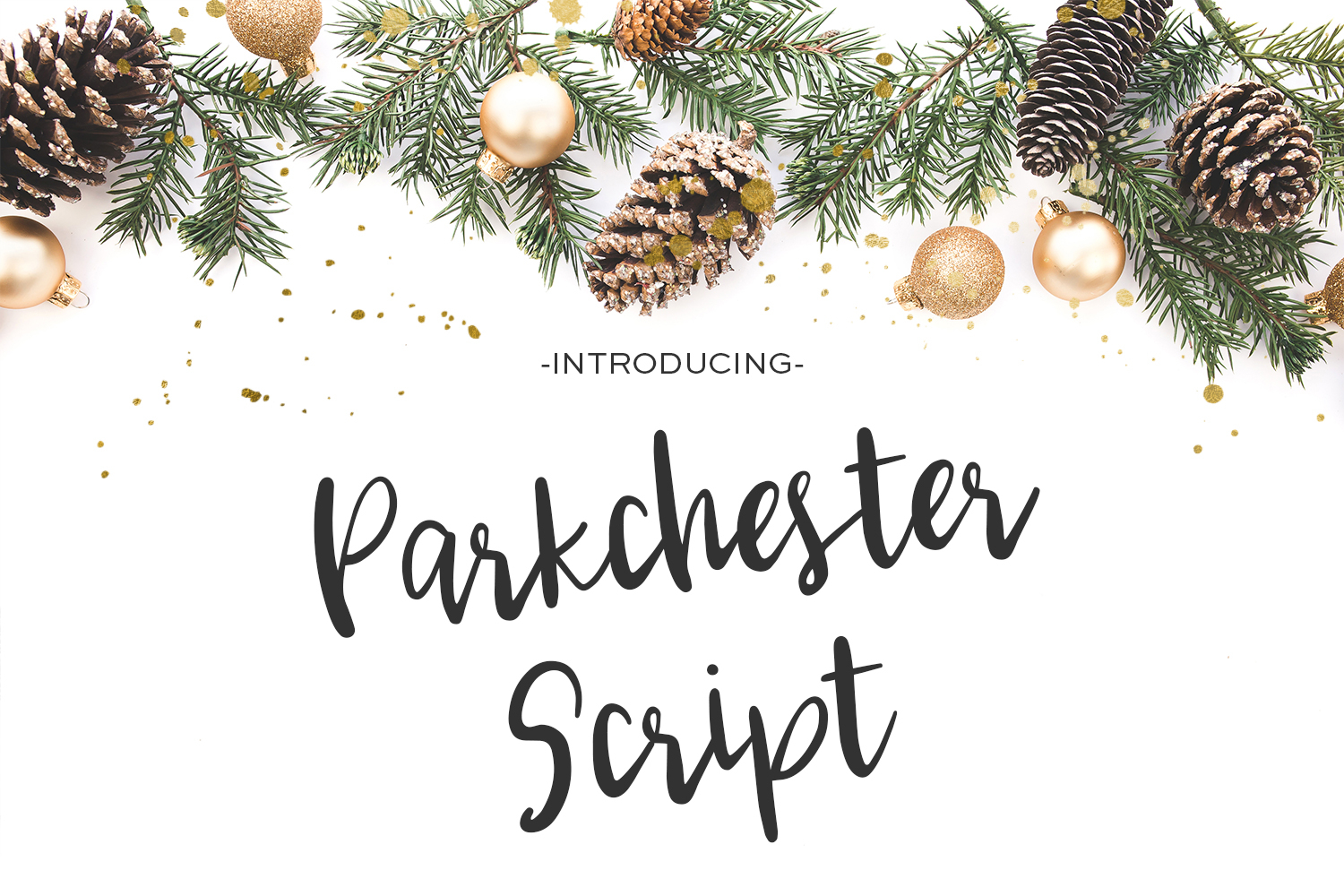
Parkchester Script is a happy, joyful script...and despite its holiday release is perfect all year round for logo & branding projects, t-shirt & other apparel designs, & more.
Parkchester features European language support!